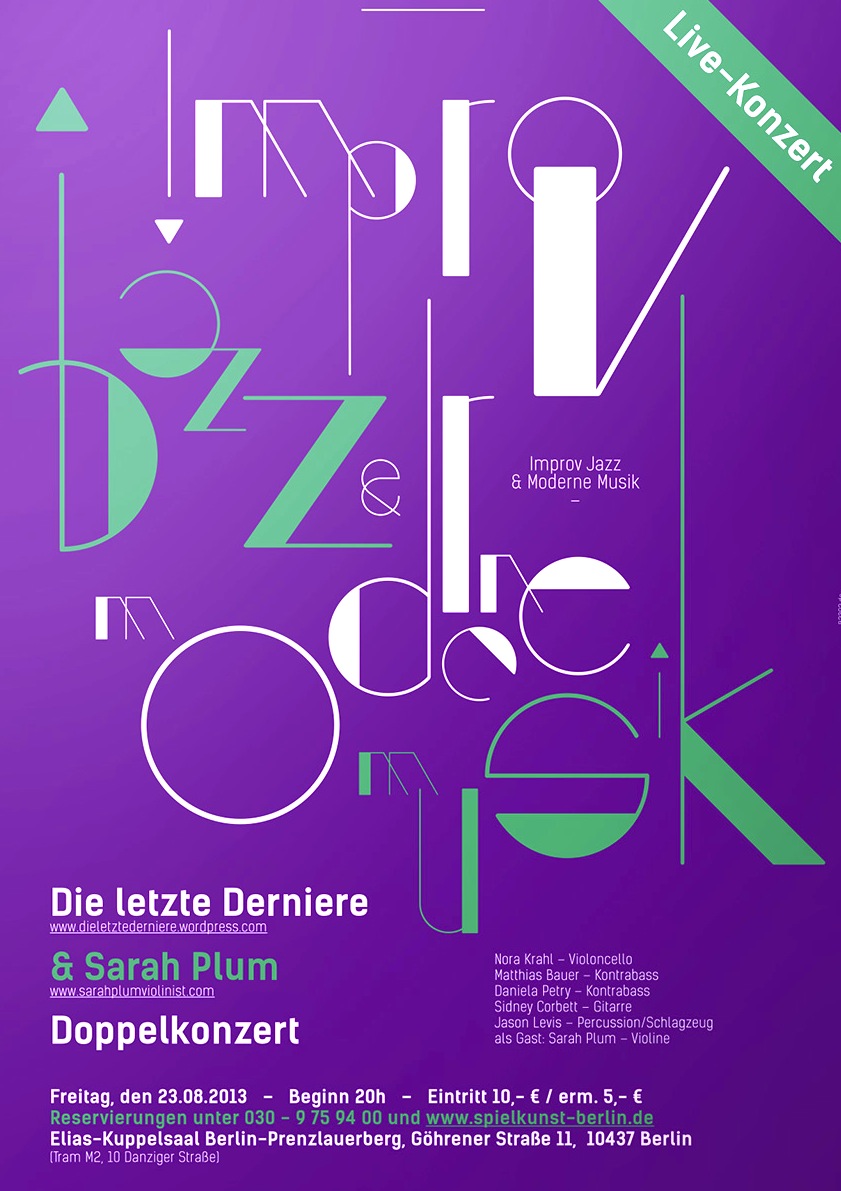
B2302 [Simon Becker]
Berlin-based designer Simon Becker (aka B2302) created Legere (2012, HypeForType) together with Jose Cunyat. It has Light, Regular and Deco styles.
In 2013, with Federico Neeva Orrù, he created a versatile octagonal multiline display family, Vasarely, named after optical artist Victor Vasarely.
In 2014, Simon designed the manicured sans typeface family Helado together with Sabrina Ekecik and Benjamin Campana. Vagtur (a tweetware hybrid of VAG Rounded and Fette Fraktur) was codesigned with Sabrina Ekecik.